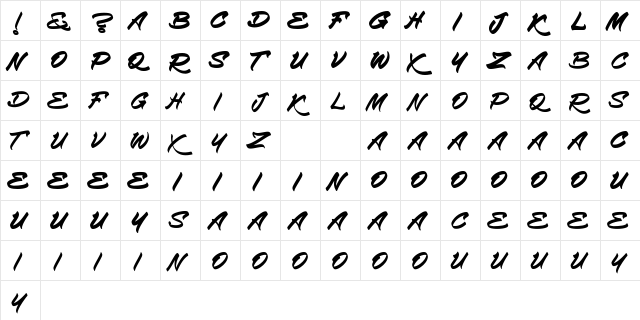
Empire Samgor Regular
| Foundry | Kotak Kuning Studio |
Design Context for Empire Samgor Typeface
Empire Samgor is a composed and adaptable typeface that performs quietly and consistently across a wide range of design contexts.